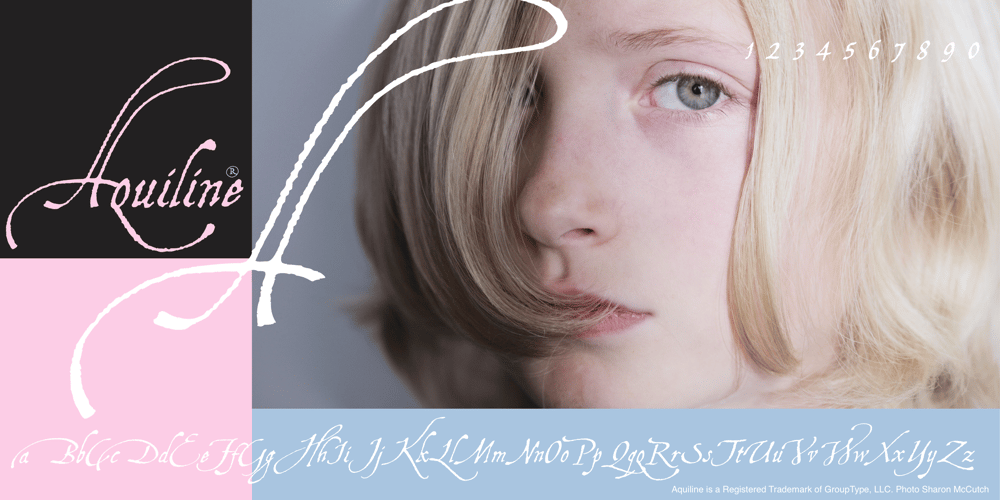
Aquiline
Aquiline font
Aquiline Font Family was designed by Ludovico degli Arrighi and published by GroupType. Aquiline contains 1 styles and family package options. Handsome, adventurous, legible and elegant, this script has the feel of practical handwriting from past centuries. Aquiline is based on a cursive italic style influenced by the 16th century European writing masters. The Aquiline design team turned to Ludovico degli Arrighi, the great 16th century writing master, for period ideas on how to improve, strengthen and add grace to the font. Aquiline has strokes and gestures that seem very like the writing of Arrighi and Mercator, such as the flamboyant balloon of a flourish on the cap A; the graceful flourishes on the cap B, D, and L; and the compact lowercase with tall ascenders. Aquiline has a strong personality and is historically correct.